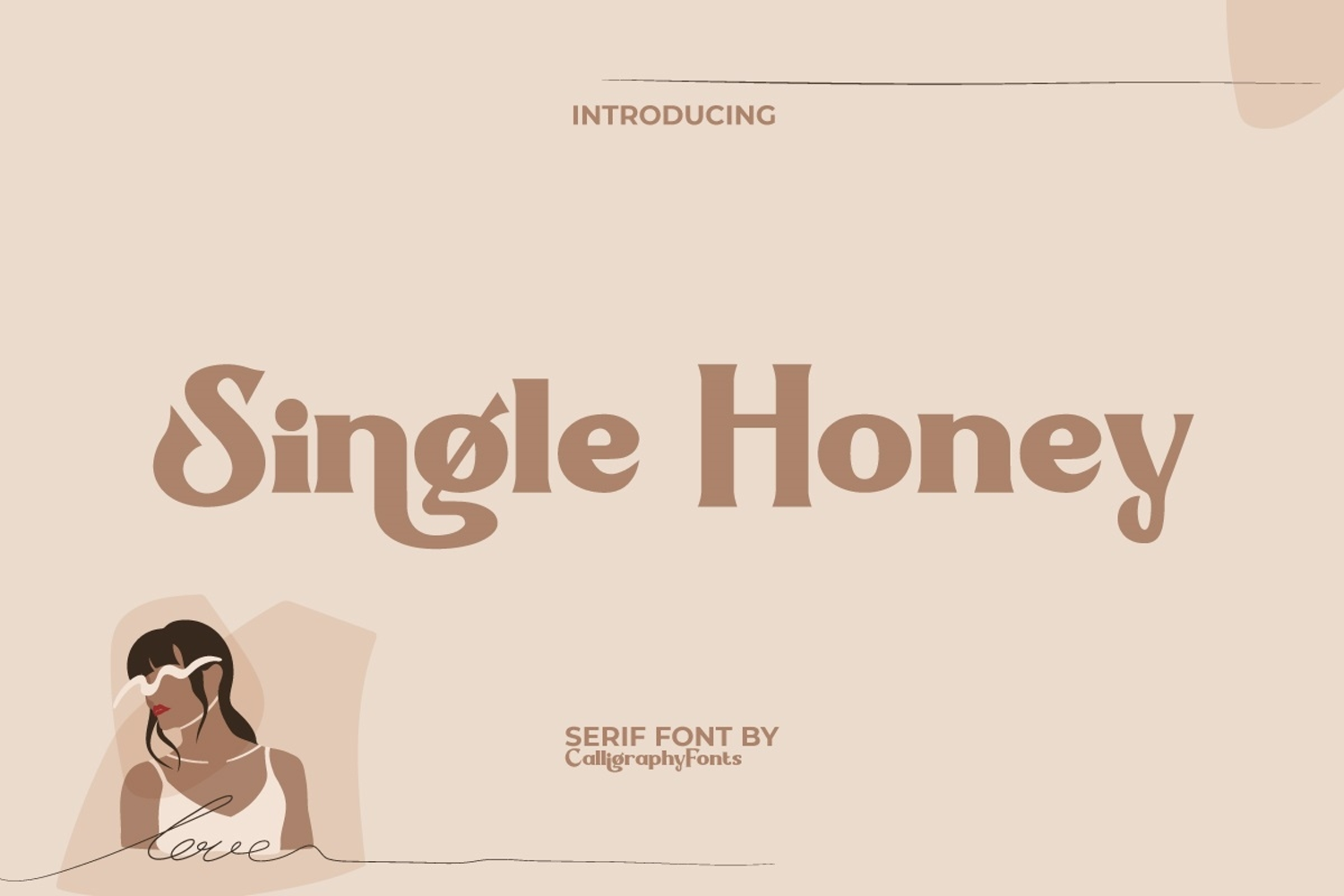
Single Honey Font
Single Honey Font is a strong yet stylish serif display font with a vintage feel but reborn with modern looks, making it a versatile and elegant high-contrast typeface. This serif type is prominent and evokes a sense of nostalgia but still fresh. Ideal for advertisements, banners, branding logo, flyer, greeting cards, heading, invitations, label stickers, quote post, tags, websites, and more.
Introducing Single Honey Display Font, a charming and modern handwritten typeface that captures sweetness and creativity in every stroke. With its playful curves and natural handwriting style, this font brings a warm. Whether you’re designing branding materials, product packaging, greeting cards, or digital content, Single Honey Display Font delivers both style and readability.
Crafted with attention to detail, this font combines elegance and friendliness, making it suitable for a wide range of uses. From wedding invitations and logos to posters, quotes, and social media graphics, Single Honey Display Font transforms ordinary text into something truly eye-catching. Its versatility allows it to pair beautifully with clean sans serif fonts for balance, or to stand alone as the star of your design.
The smooth flow of the letters reflects the feeling of handwritten notes, making your work appear authentic, engaging, and full of personality. Designers who want to add a feminine, joyful, or creative flair will find Single Honey Display Font to be the perfect choice. It’s especially ideal for lifestyle brands, bakeries, fashion boutiques, handmade products, and anything that calls for a sweet, memorable style.
Single Honey Display Font is a classic serif with its ligatures that have a unique shape and look great in large and small settings as display and body text. We keep this font looking elegant and readable so it will be interesting to be a favorite and the right choice for accommodation, beauty product, fashion, florist, graphic design, handicraft, home furniture, spa salon and other projects.